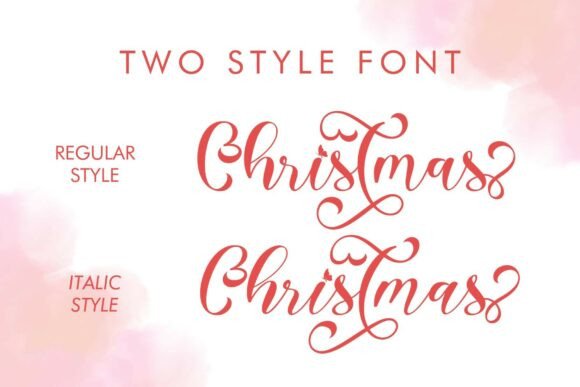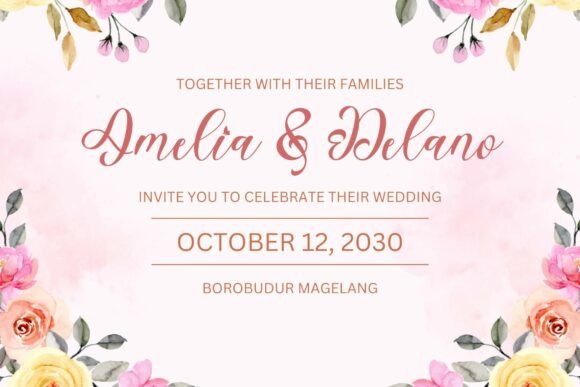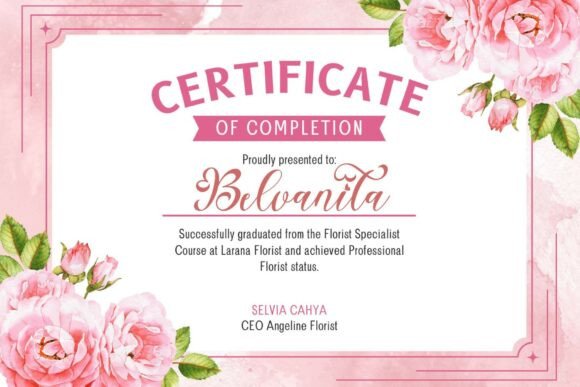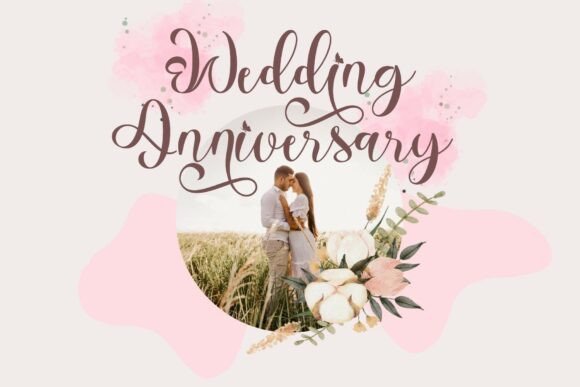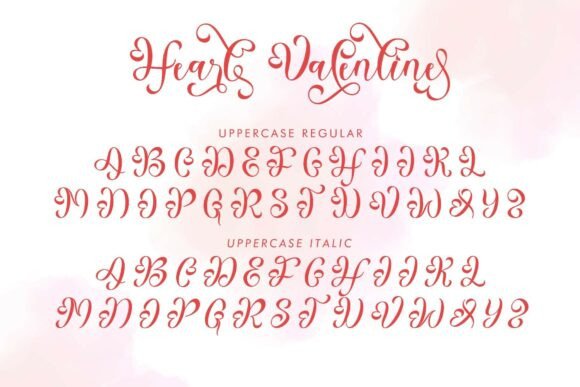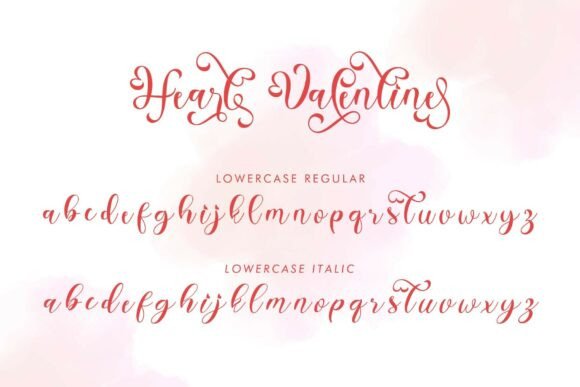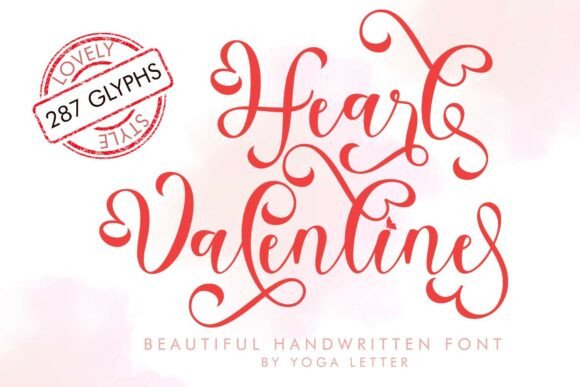
Introducing Heart Valentine Font: The Perfect Handwritten Script for Your Valentine’s Day and Beyond
Are you looking for a beautiful and elegant font to make your Valentine’s Day designs, wedding invitations, or holiday cards stand out? Look no further than the Heart Valentine Font! This stunning handwritten script font is perfect for designers and crafters who want to add a touch of romance and whimsy to their projects.
What Makes Heart Valentine Font So Special?
The Heart Valentine Font is a beautifully crafted handwritten script font that features:
- Uppercase and lowercase letters for a wide range of design possibilities
- Swashes and alternates to add a touch of elegance and sophistication
- Numerals, punctuations, and multilingual support for versatility
With its beautiful and flowing script, the Heart Valentine Font is perfect for a variety of design projects, including:
- Valentine’s Day cards and designs
- Christmas and holiday cards
- Winter and spring-themed designs
- Photography and branding projects
- Thanksgiving and fall designs
- New Year’s Eve and party invitations
- Print materials, banners, and more!
Why Designers and Crafters Love Heart Valentine Font
Designers and crafters love the Heart Valentine Font for its unique and elegant style, which adds a touch of romance and whimsy to any design project. Here are just a few reasons why:
- Easy to read and beautiful to look at: The Heart Valentine Font is clear and easy to read, making it perfect for designs that require a personal touch.
- Versatile and flexible: With its range of features, including swashes and alternates, the Heart Valentine Font can be used for a wide range of design projects.
- Perfect for branding and marketing: The Heart Valentine Font is elegant and sophisticated, making it perfect for branding and marketing projects that require a touch of luxury.
How to Use Heart Valentine Font in Your Designs
Using the Heart Valentine Font in your designs is easy! Here are a few tips to get you started:
- Pair it with other fonts: The Heart Valentine Font looks beautiful paired with other fonts, such as sans-serif fonts or serif fonts.
- Experiment with swashes and alternates: The swashes and alternates in the Heart Valentine Font can add a touch of elegance and sophistication to your designs.
- Use it for headings and titles: The Heart Valentine Font is perfect for headings and titles, adding a touch of romance and whimsy to your designs.
The Heart Valentine Font is a beautiful and elegant handwritten script font that’s perfect for designers and crafters who want to add a touch of romance and whimsy to their projects. With its range of features, including uppercase and lowercase letters, swashes, alternates, numerals, punctuations, and multilingual support, it’s perfect for a wide range of design projects. Whether you’re designing for Valentine’s Day, weddings, holidays, or just want to add a touch of elegance to your designs, the Heart Valentine Font is the perfect choice.